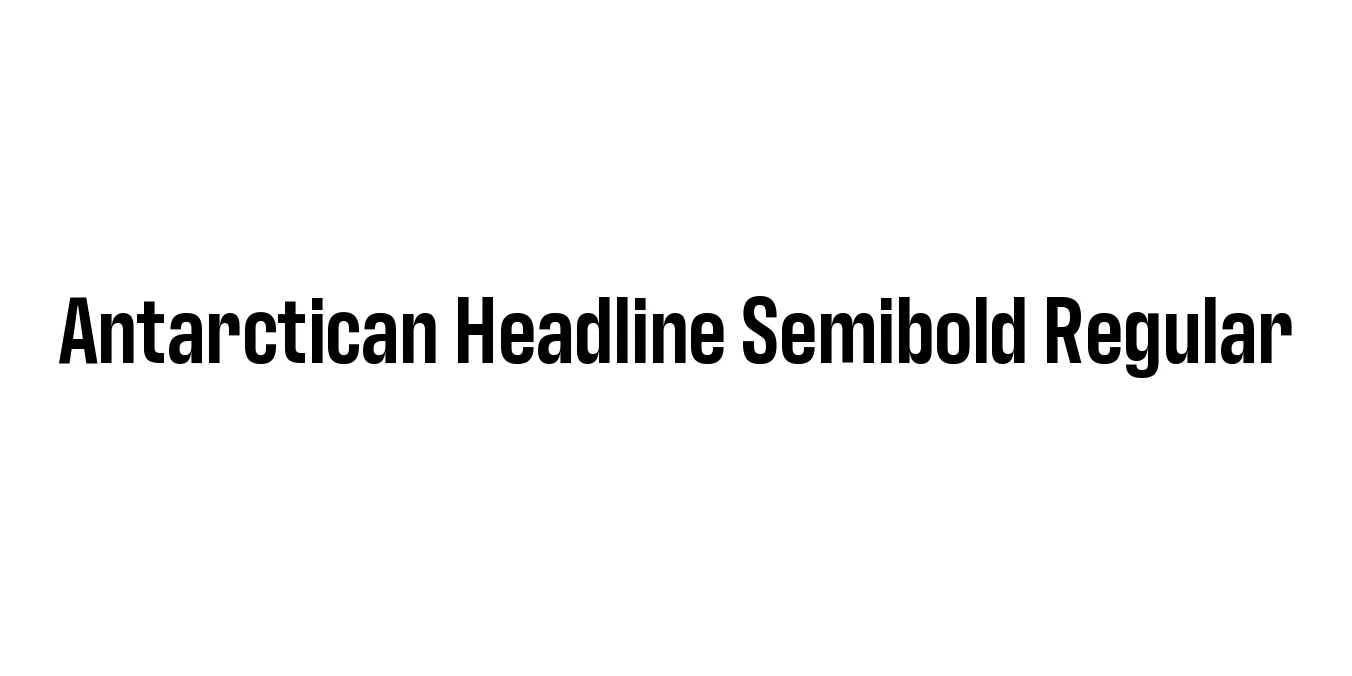
Antarctican Headline Semibold Regular
Designed by Gareth Hague
| Category | Sans Serif / Display |
| Designer | Gareth Hague |
Antarctican Headline Semibold Regular is a sophisticated sans-serif typeface designed by Gareth Hague and released through the boutique foundry Alias. This font is part of a larger, versatile family that draws inspiration from industrial and technical letterforms, meticulously crafted to provide maximum impact in narrow spaces. Its design is characterized by a high x-height, condensed proportions, and clean lines, making it an essential tool for designers who need to balance space efficiency with a commanding visual presence.
The typeface excels in high-pressure design environments where clarity and authority are paramount. By blending modern geometric precision with a touch of mid-century technical aesthetics, Antarctican Headline Semibold Regular offers a unique alternative to traditional grotesque fonts. It is widely utilized in professional editorial layouts, bold branding projects, and digital platforms that demand a structured and masculine aesthetic without compromising on legibility or style.
Exceptional for magazine headlines and impactful front-page layouts.
Perfect for corporate identities that require a sense of stability and authority.
Ideal for bold hero sections and high-visibility navigation menus.
Great for creating high-impact promotional graphics and minimalist posters.